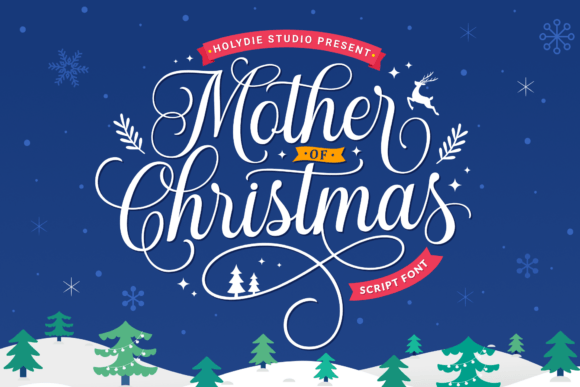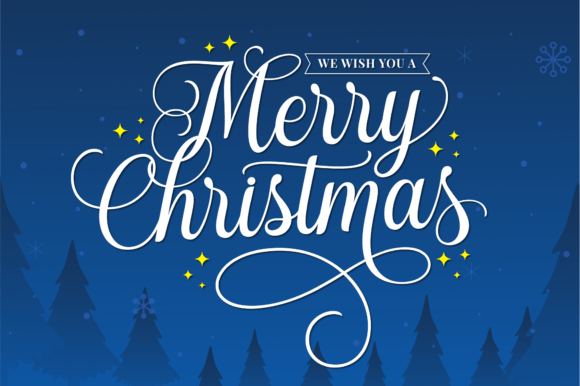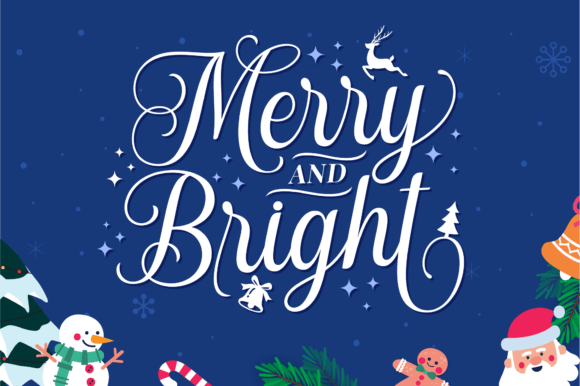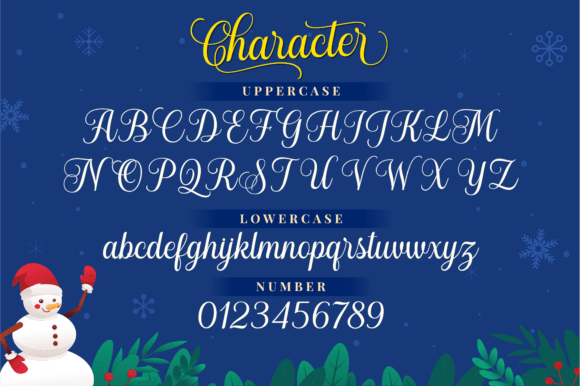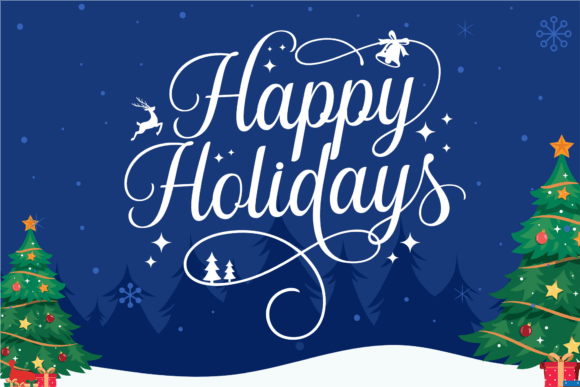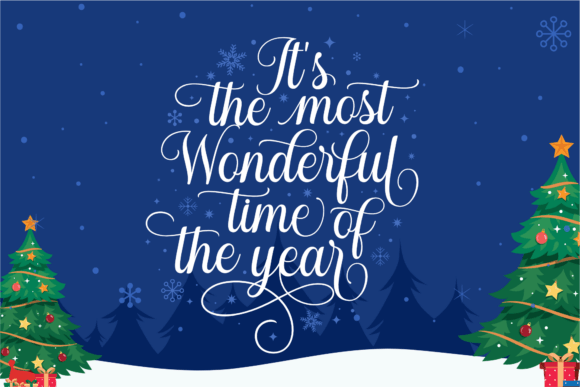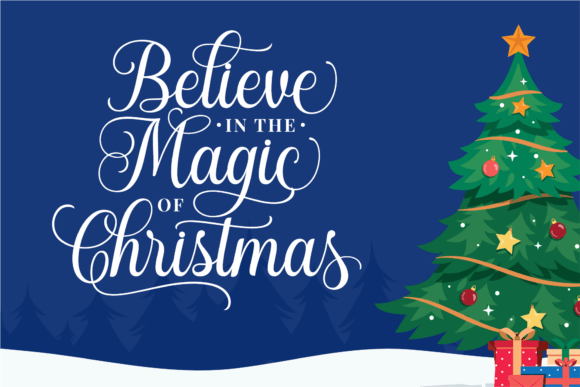
Mother of Christmas Font
Mother of Christmas is a Classy and elegant script font. It’s great for crafters and designers. This font is perfect for Christmas, New Year, winter, Easter, Thanksgiving, and festive craft projects. Its elegant yet playful design makes it a versatile choice for both decorative and functional creations